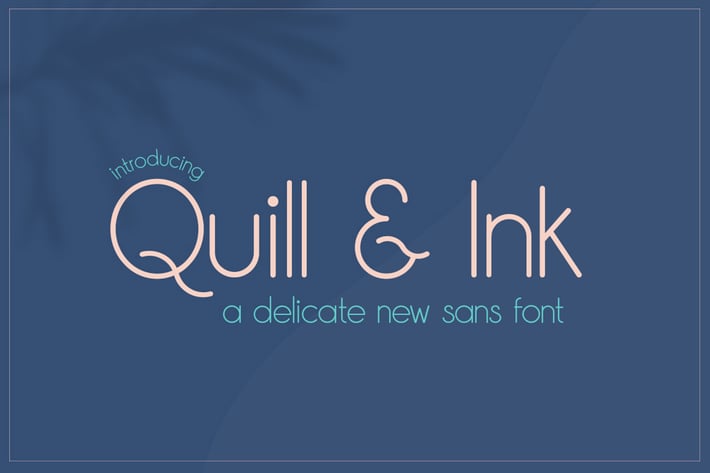
Quill & Ink Sans Font
Quill & Ink is here! A beautiful new script font that is as classy as it is gorgeous. Created with the end user in mind, the letters fit perfectly together and it works so well for modern, monoline logos with a kick of sass.